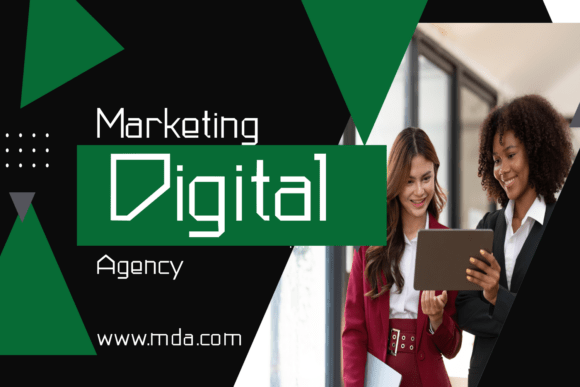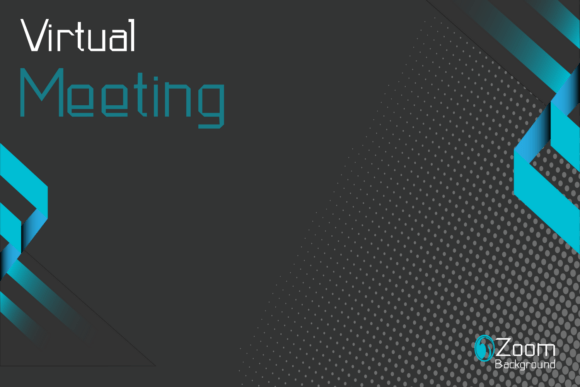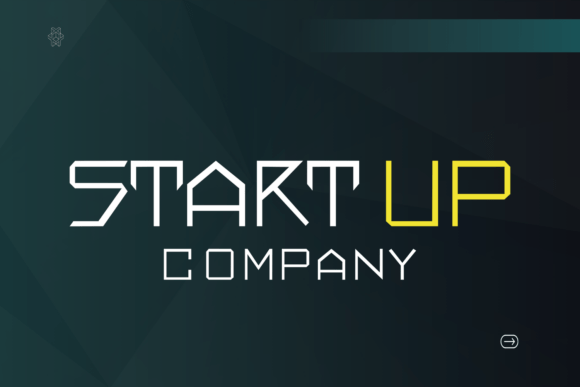
Introduction to Murisa Takao Font
Step into the future with Murisa Takao, a bold typographic statement forged from precision, symmetry, and unapologetic style.
This geometric display font is not just a tool β€” it’s a visual force designed to dominate digital landscapes, sci-fi universes, and avant-garde branding ✨ Why Murisa Takao stands apart: Architectural Elegance: Each character is sculpted with sharp angles and clean lines, echoing the sophistication of modern architecture and industrial design.